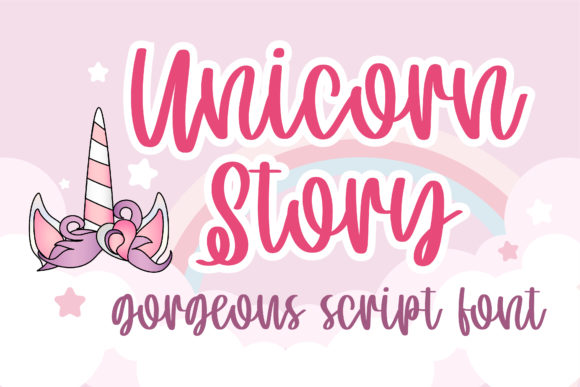
Journey into a world of enchanting designs with Unicorn Story Font, the script font that captivates hearts with its sweet and friendly charm. Its natural and unique style offers a boundless canvas for your creativity, transforming your words into captivating works of art.
With Unicorn Story Font, your Cricut label creations will blossom into stunning masterpieces, adding a touch of magic to every project. Its graceful curves and playful personality lend themselves perfectly to heartfelt messages, whimsical invitations, and enchanting home décor.
Imagine the joy of crafting personalized gifts that speak volumes, expressing your love and care with each letter. Unicorn Story Font is like a magic wand, transforming ordinary words into extraordinary expressions that touch the soul.
Unleash your imagination and let Unicorn Story Font guide you on a creative adventure. Whether you're designing greeting cards, crafting unique logos, or adding a touch of whimsy to your social media posts, this font will elevate your designs to new heights of beauty and charm.
Your imagination is the only limit with Unicorn Story Font. Embrace its enchanting allure and watch as your creative visions come to life, leaving a trail of beauty and wonder wherever they go. Embrace the magic and make Unicorn Story Font your go-to font for captivating designs that leave a lasting impression.